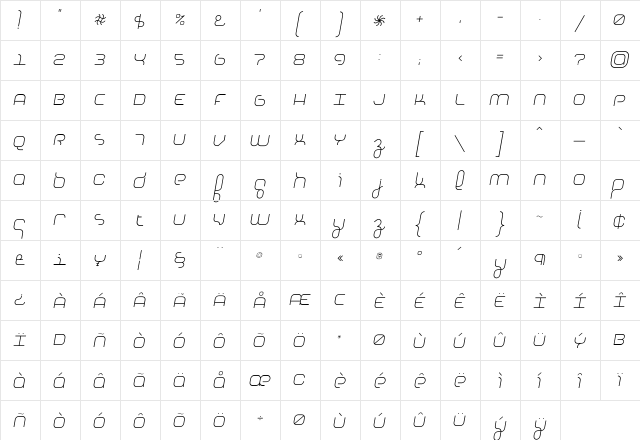
Basis Oblique Font Preview
Basis Oblique
Design Context for Basis Typeface
Basis takes a measured approach to typography — its balanced proportions and neutral character make it a reliable workhorse for both digital and print work. The dynamic lean of this cut emphasises speed and emphasis in any layout.